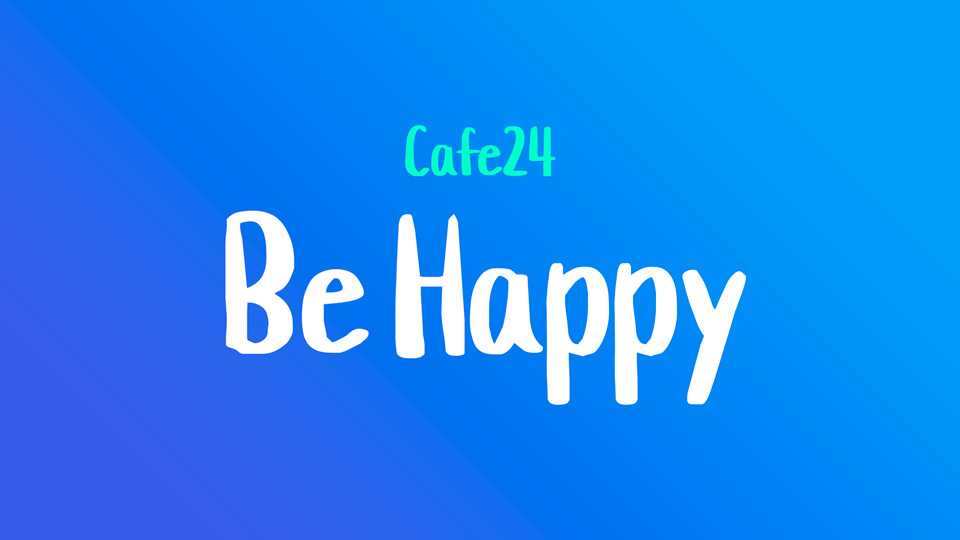
Download Be Happy font, a simple and cute hand-lettered brush style typeface. Be Happy will be perfect for books, greeting cards, posters, picture books or anything that requires a fun and happiness look.
Designer: Cafe24